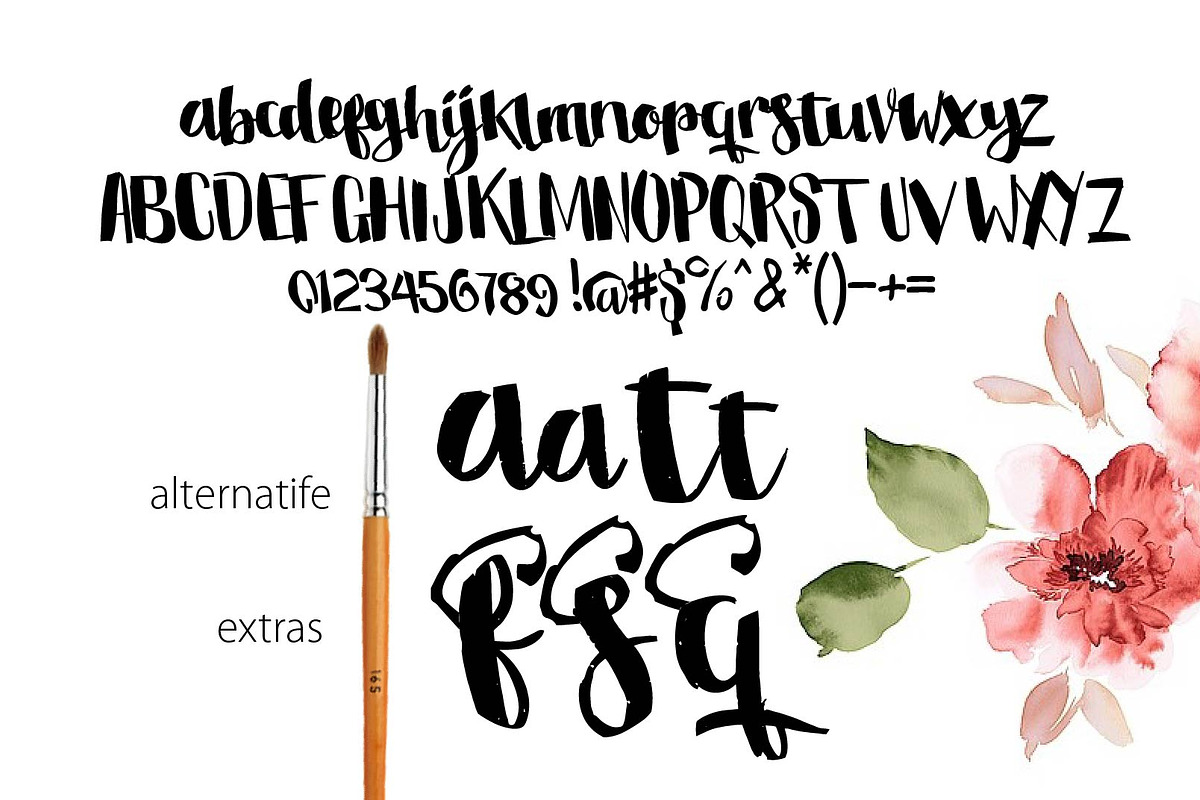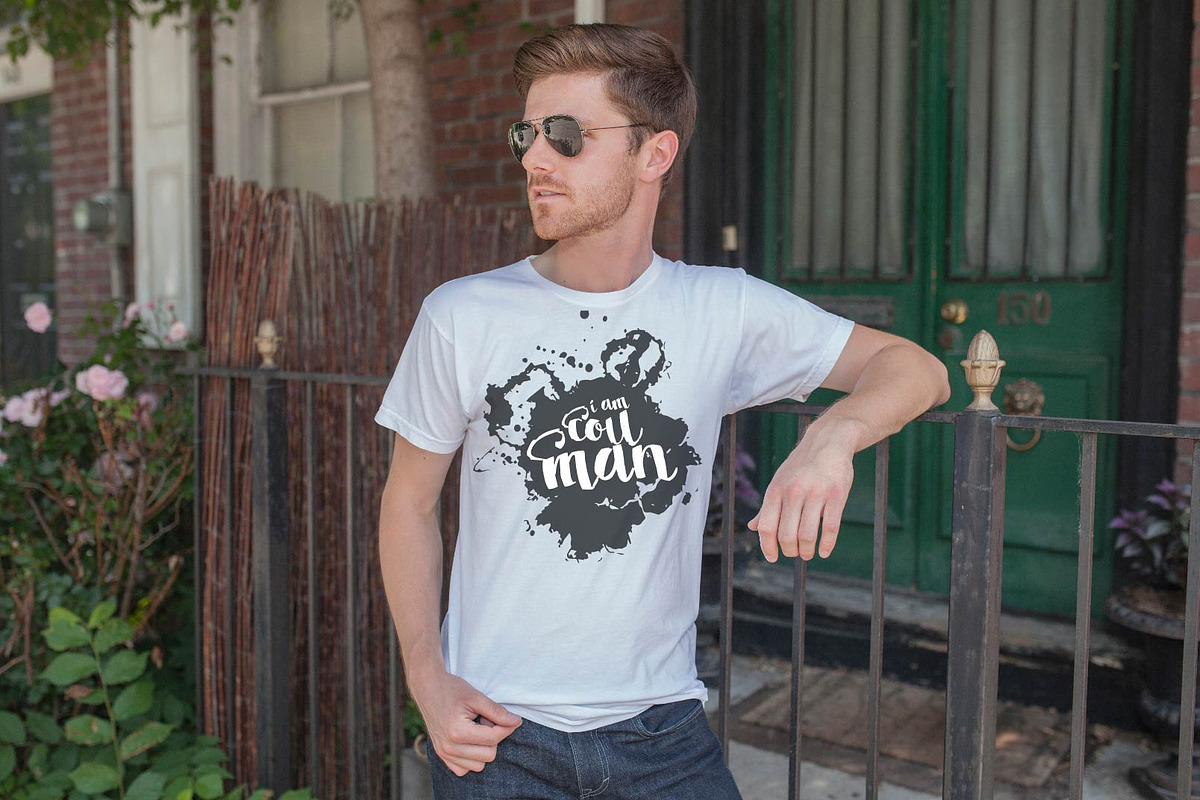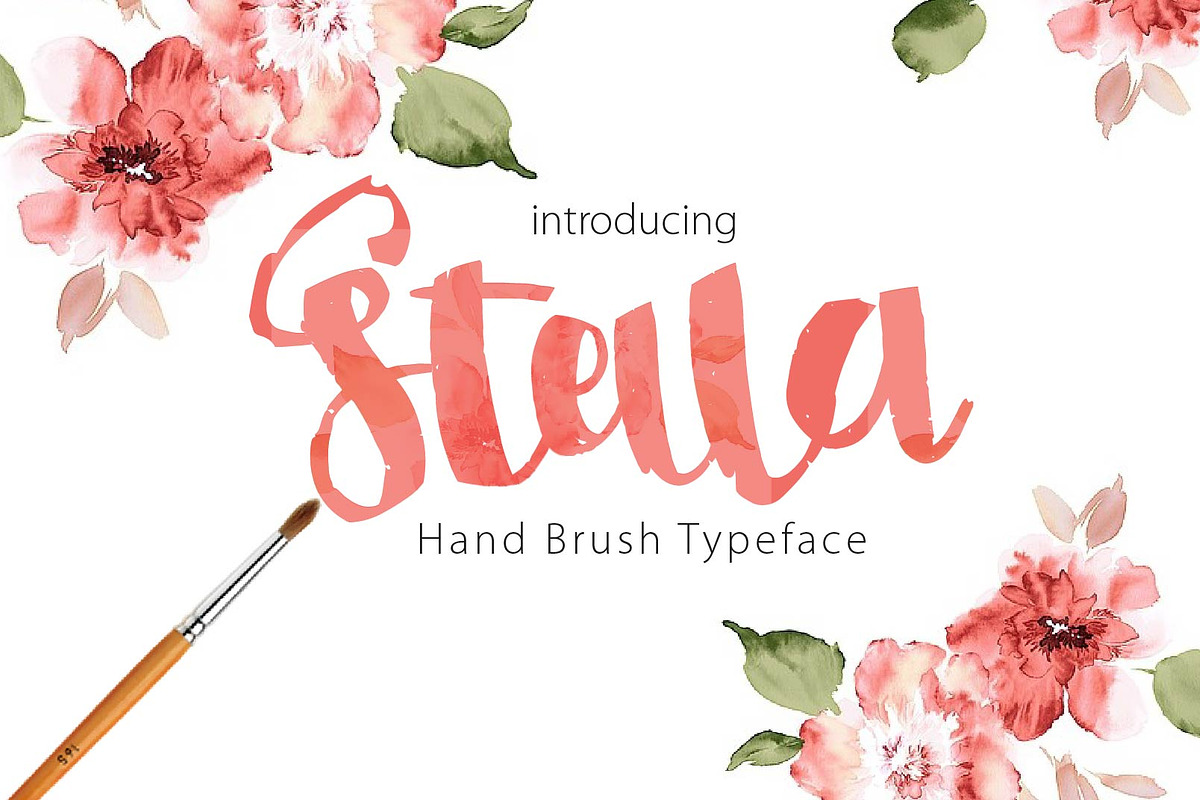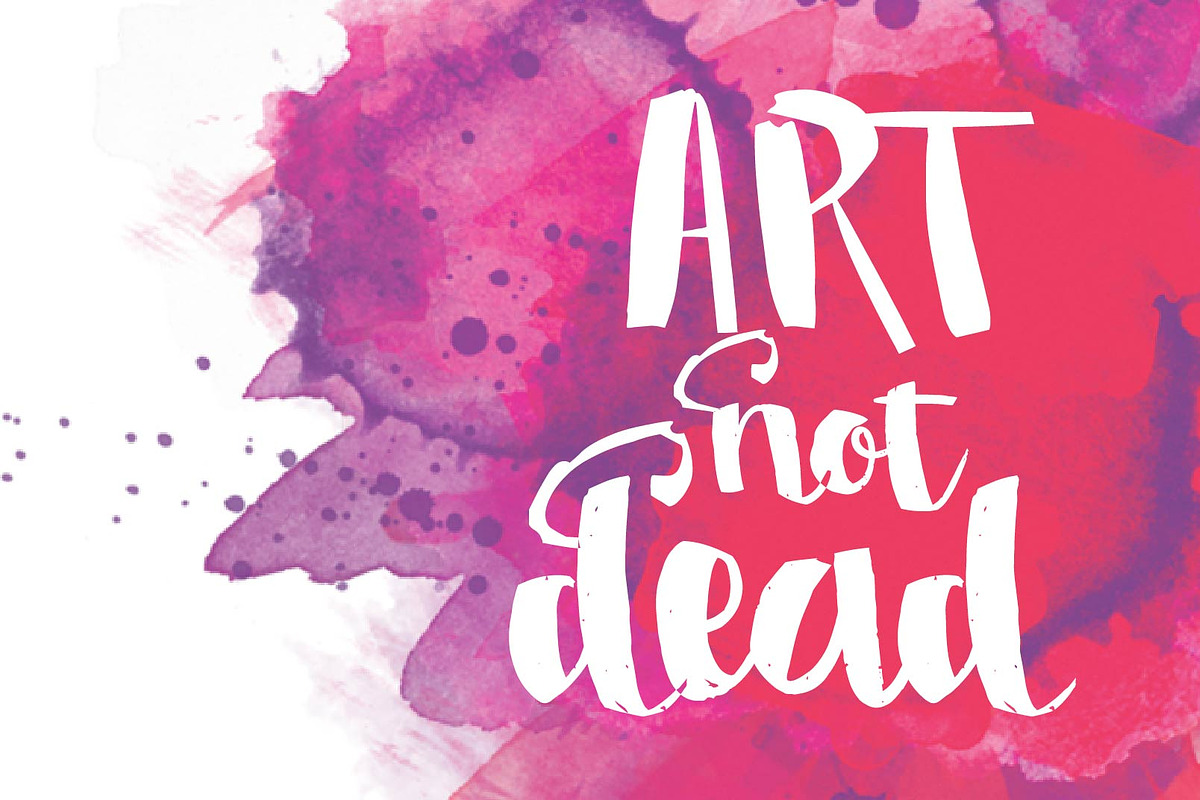
Stella script typeface
Stella script typeface by Olexstudio is a font selected for branding, posters, packaging, typography.
- Stella script typeface is a beautiful hand typeface that comes with a set of Beautiful extras.
- Highly Suitable for a variety of media design , logo, fashion, poster and all design product Features Uppercase Lowercase Numerals & Punctua
Why Stella script typeface is worth a look
Stella script typeface by Olexstudio fits naturally into Branding, posters, packaging, typography.